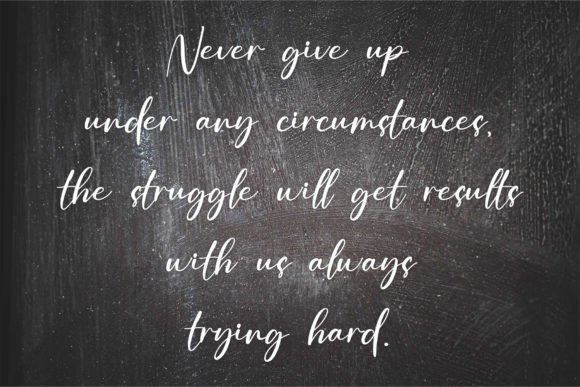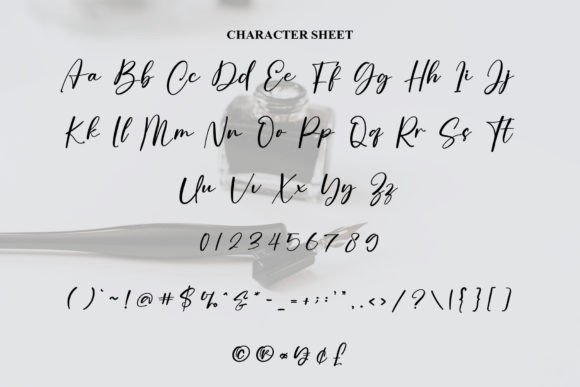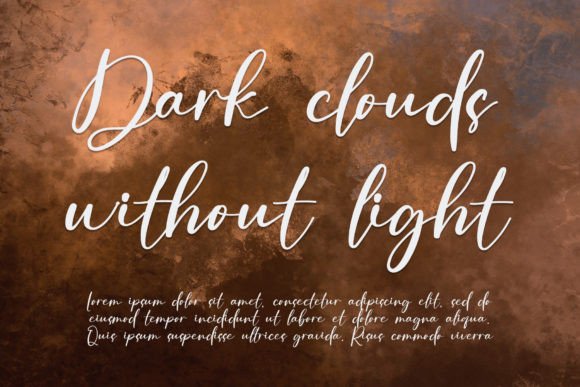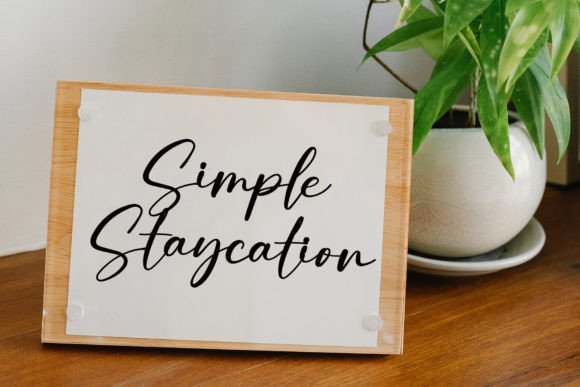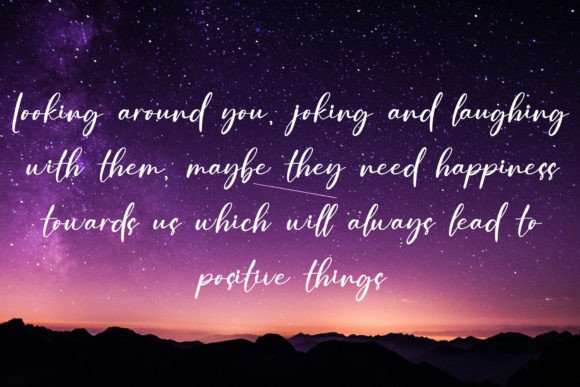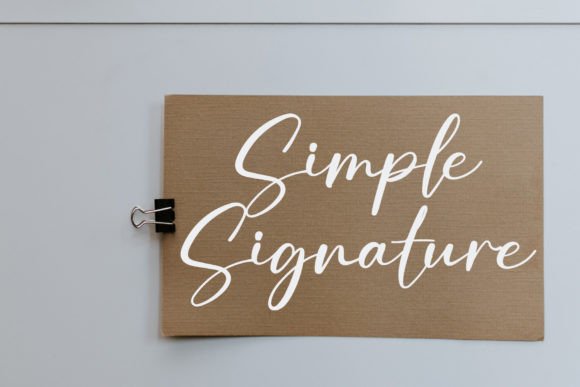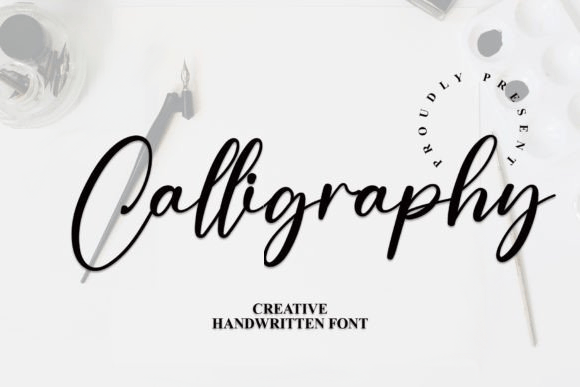
Elevate Your Designs with the Elegance of Calligraphy Fonts
Calligraphy is an enchanting handwritten font that has been a cornerstone of beautiful design for centuries. This versatile script font has a wide spectrum of applications, ranging from greeting cards to headlines, and is guaranteed to add a romantic feel to your next project. Whether you’re a designer, crafter, or simply someone who appreciates the art of beautiful writing, calligraphy fonts are an excellent way to add a touch of elegance and sophistication to your work.
The Art of Calligraphy
Calligraphy is the art of beautiful handwriting, characterized by its flowing lines, intricate letterforms, and expressive flourishes. The word “calligraphy” comes from the Greek words “kallos,” meaning beauty, and “graphein,” meaning to write. Calligraphy has been used for centuries to create stunning works of art, from illuminated manuscripts to elegant wedding invitations. Today, calligraphy fonts allow designers and crafters to tap into this rich tradition and bring a touch of elegance to their projects.
The Versatility of Calligraphy Fonts
One of the greatest advantages of calligraphy fonts is their versatility. They can be used in a wide range of applications, from formal events like weddings and graduations to more casual projects like greeting cards and social media graphics. Calligraphy fonts are also highly adaptable, and can be used in conjunction with other design elements to create a unique and cohesive look.
Wedding and Event Stationery
Calligraphy fonts are a popular choice for wedding and event stationery, including invitations, save-the-dates, and thank-you cards. They add a touch of romance and sophistication to these special occasions, and can be used to create beautiful, one-of-a-kind designs. Whether you’re a bride looking for the perfect wedding invitation or a designer creating custom stationery for clients, calligraphy fonts are an excellent choice.
Graphic Design and Headlines
Calligraphy fonts are also commonly used in graphic design, particularly for headlines and titles. They add a touch of elegance and sophistication to any design, and can be used to create stunning posters, flyers, and brochures. Whether you’re designing a logo, creating a social media graphic, or developing a marketing campaign, calligraphy fonts are a great way to add visual interest and create a lasting impression.
Crafting and DIY Projects
Calligraphy fonts are not just limited to digital design. They can also be used in crafting and DIY projects, such as handmade cards, scrapbooking, and journaling. Whether you’re a crafter looking for a unique font to add to your project or a DIY enthusiast seeking inspiration, calligraphy fonts are an excellent choice.
Tips for Using Calligraphy Fonts
Calligraphy fonts are a versatile and elegant way to add a touch of sophistication to your designs. Whether you’re a designer, crafter, or simply someone who appreciates the art of beautiful writing, calligraphy fonts are an excellent choice. With their flowing lines, intricate letterforms, and expressive flourishes, calligraphy fonts are sure to add a romantic feel to your next project. So why not give them a try and see the magic of calligraphy for yourself?